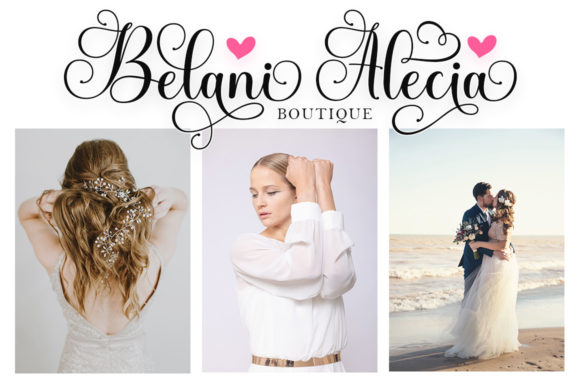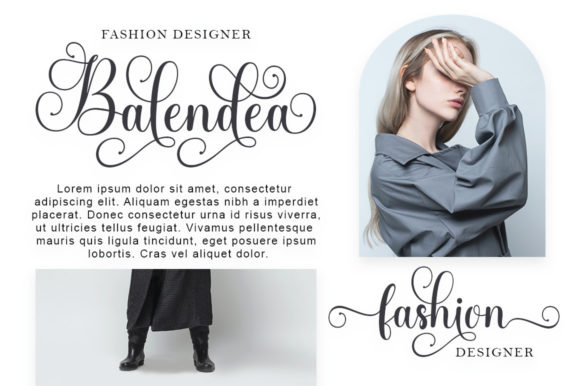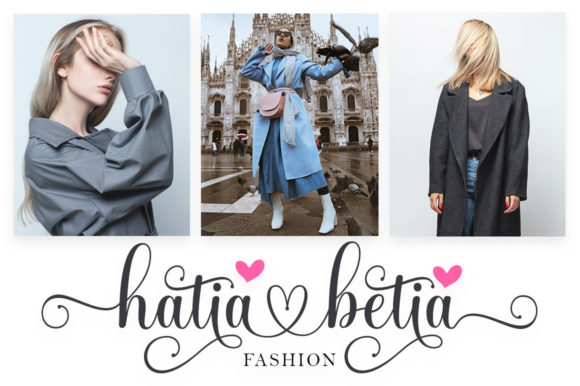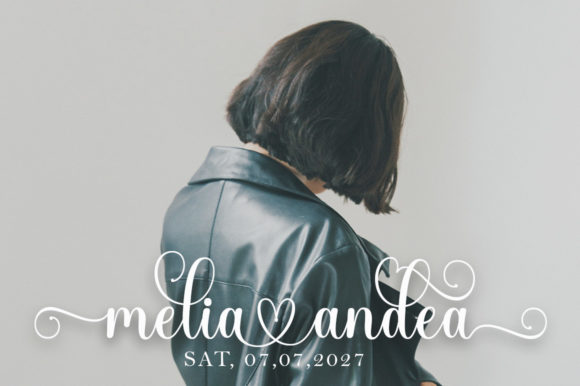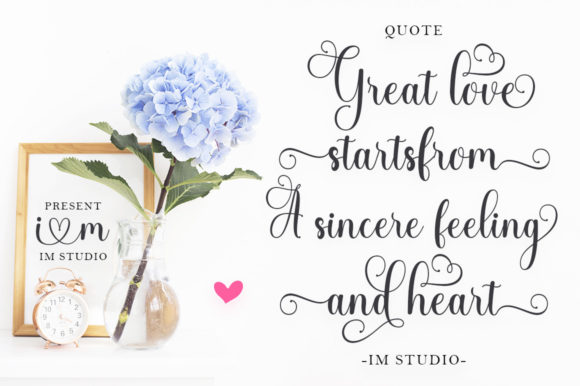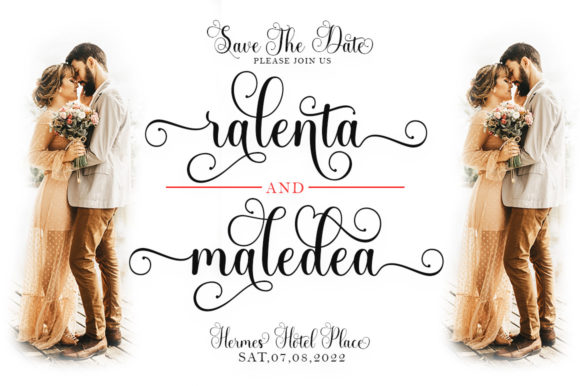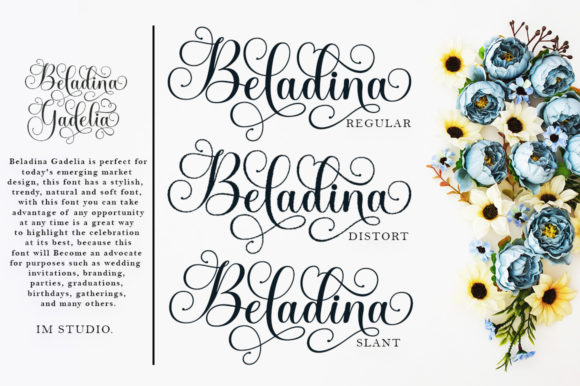
Beladina Gadelia Font
Introducing Beladina Gadelia, a font that encapsulates the essence of elegance and timelessness in every stroke. This lovely handwritten font is a true masterpiece that will elevate your design projects to new heights. Whether you’re working on logos, branding, or crafting impactful quotes, Beladina Gadelia is the perfect choice to capture attention and leave a lasting impression.
With its exquisite and timeless design, Beladina Gadelia becomes an instant focal point in any visual composition. The graceful curves and refined details of each letter make it a natural fit for creating captivating logos that reflect your brand’s identity with sophistication.
When it comes to branding, Beladina Gadelia effortlessly infuses your designs with a touch of classic beauty. Its handwritten charm adds a human touch that resonates with authenticity, allowing your brand to establish a genuine and meaningful connection with your audience.
Crafting impactful quotes becomes a breeze with Beladina Gadelia. Its flowing and elegant characters bring your words to life, evoking emotion and resonance. Whether it’s for social media graphics, posters, or inspirational content, this font adds a layer of depth and allure that captivates the viewer.
The versatility of Beladina Gadelia extends beyond logos and quotes. It seamlessly adapts to various design projects, from product packaging to signage, from invitations to labels. Its PUA encoding grants you access to a treasure trove of glyphs and swashes, allowing you to unleash your creativity and explore endless design possibilities.
Beladina Gadelia is not just a font; it’s a timeless companion on your creative journey. Its ability to transform ordinary text into extraordinary works of art makes it an invaluable asset in your design toolkit. Elevate your projects with the elegance and charm of Beladina Gadelia and watch as it weaves its magic into every aspect of your visual storytelling.